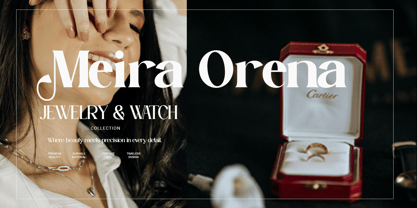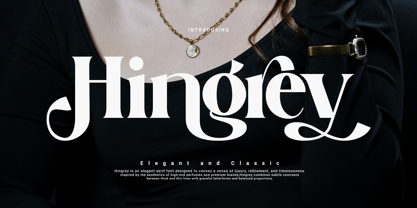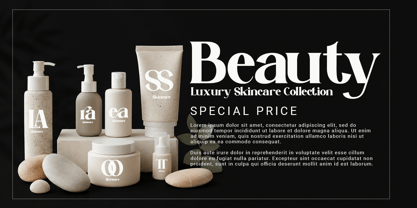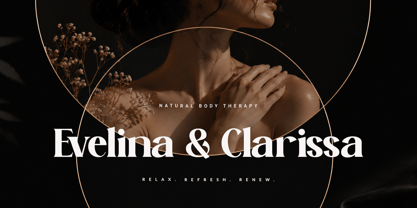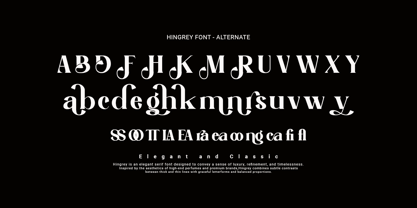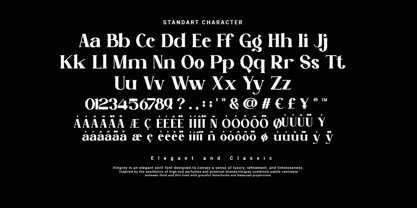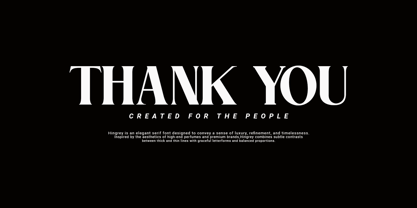
Hingrey
by Agung Sudirman
The Hingrey Font Family was designed by Agung Sudirman and published by Agung Sudirman. Hingrey contains 2 styles and family package options. More about this family
Hingrey is a sophisticated serif typeface that blends timeless elegance with modern refinement, featuring graceful curves, distinctive high-contrast strokes, and carefully crafted details that create a luxurious visual presence. Designed to elevate premium branding, fashion editorials, wedding stationery, cosmetic packaging, logo design, and high-end marketing materials, Hingrey delivers a perfect balance between classic beauty and contemporary style, offering exceptional readability while expressing confidence, exclusivity, and artistic character in every letterform.
Designers: Agung Sudirman
Foundry: Agung Sudirman